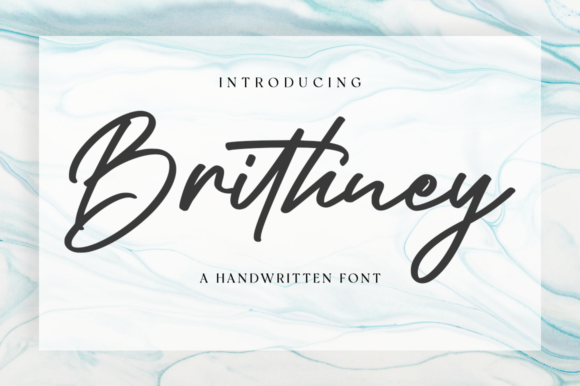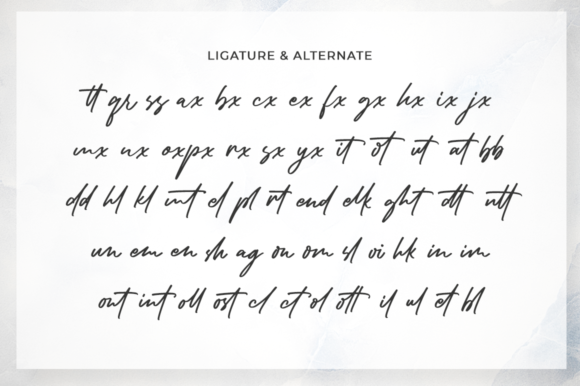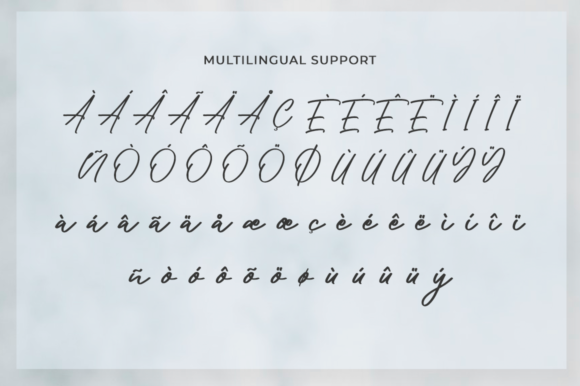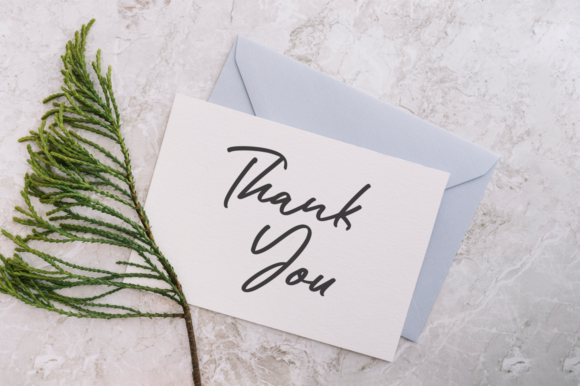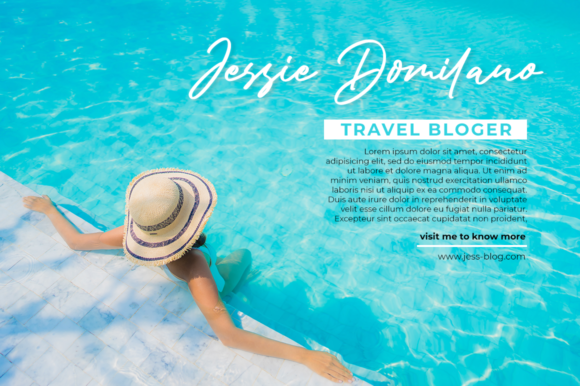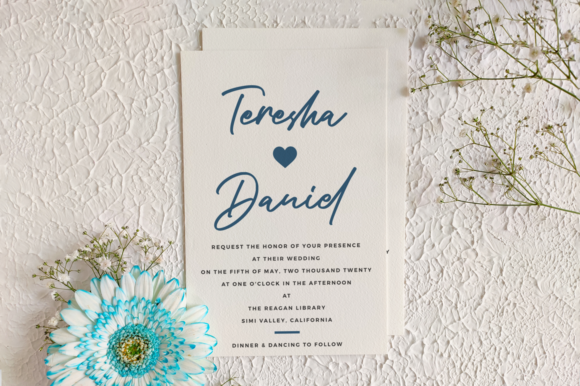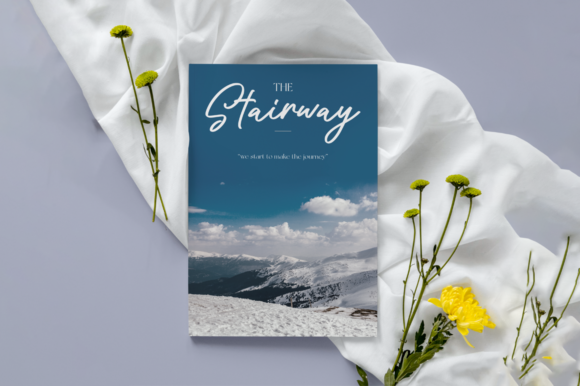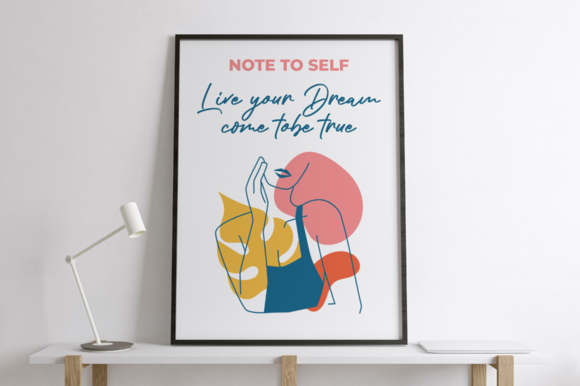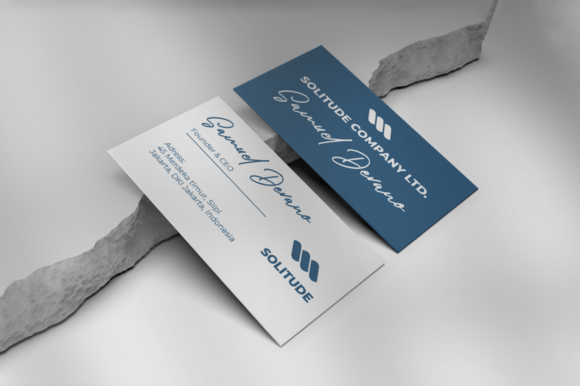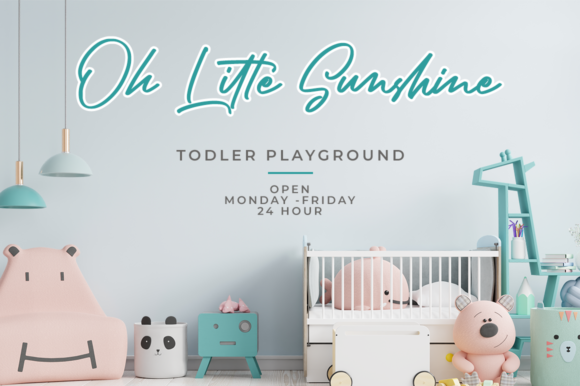
Brithney Font
About Brithney Font
Brithney is a lovely and delicate script font that exudes style and class. This font was particularly crafted for those who need a beautiful and refreshing look to their designs. Brithney is PUA encoded, which means you can access all glyphs and swashes with ease!